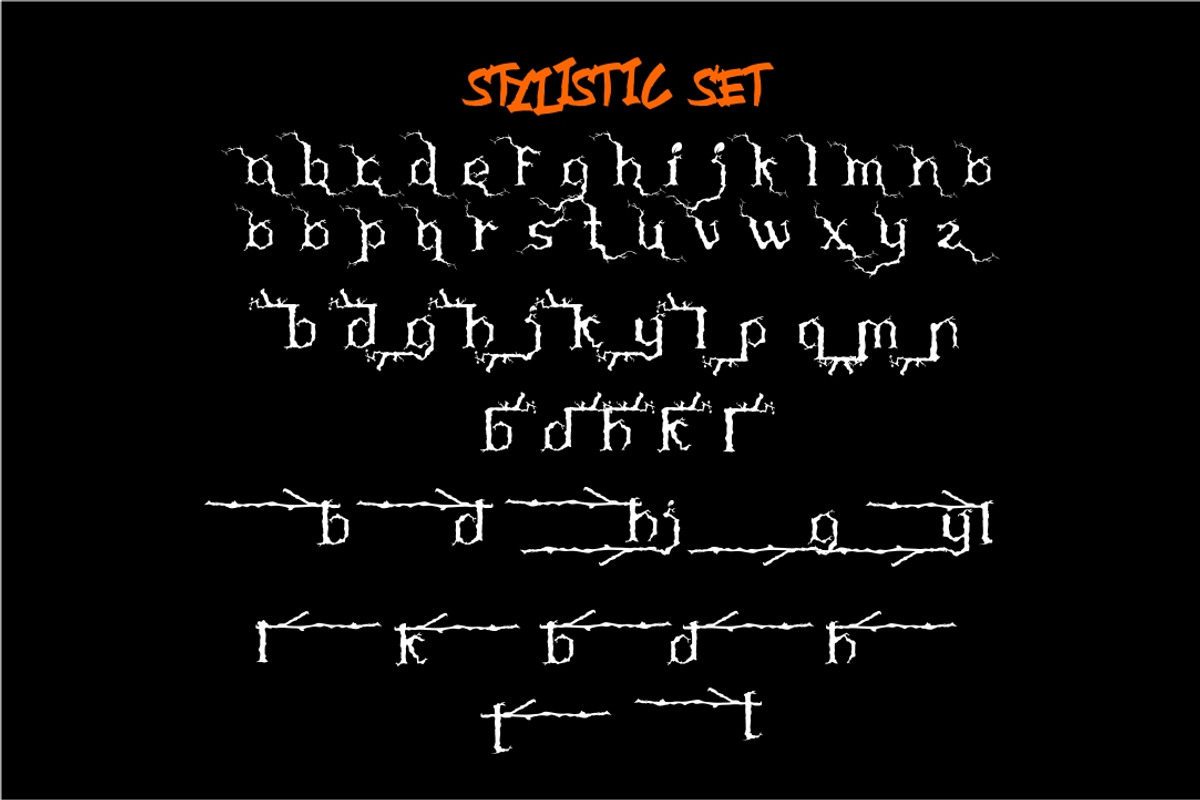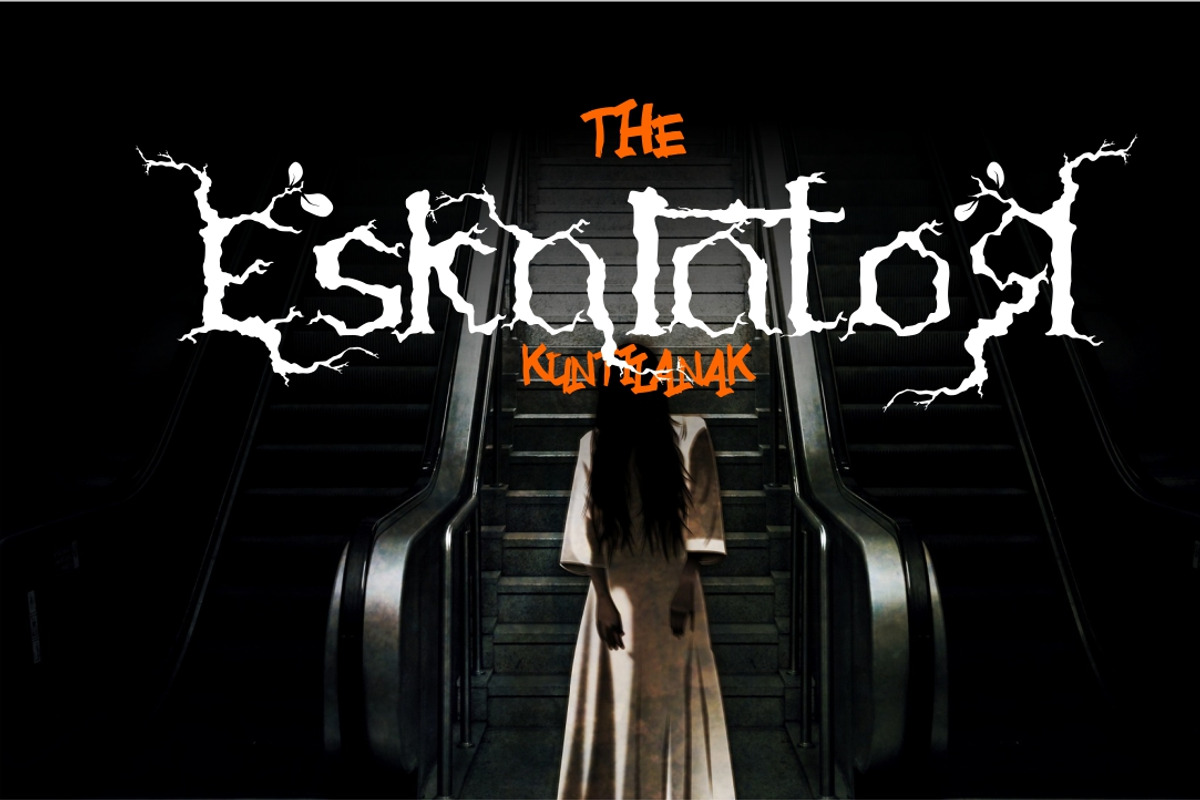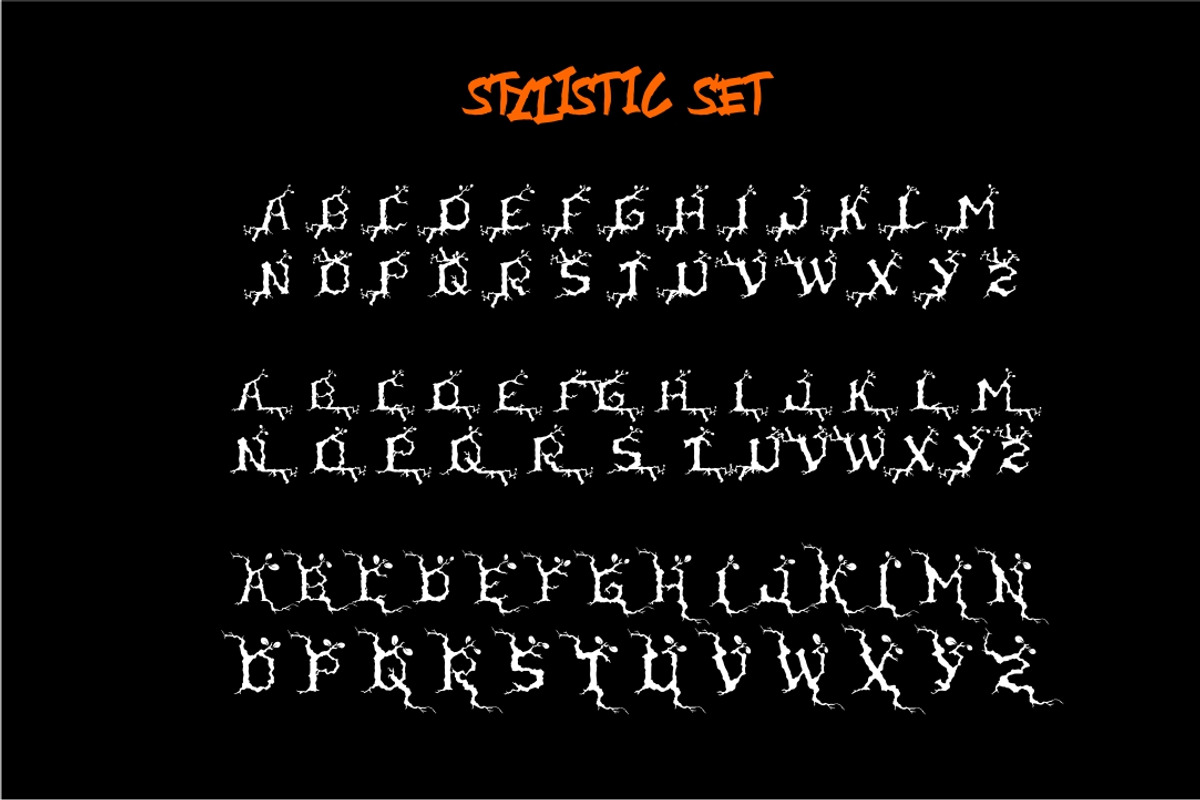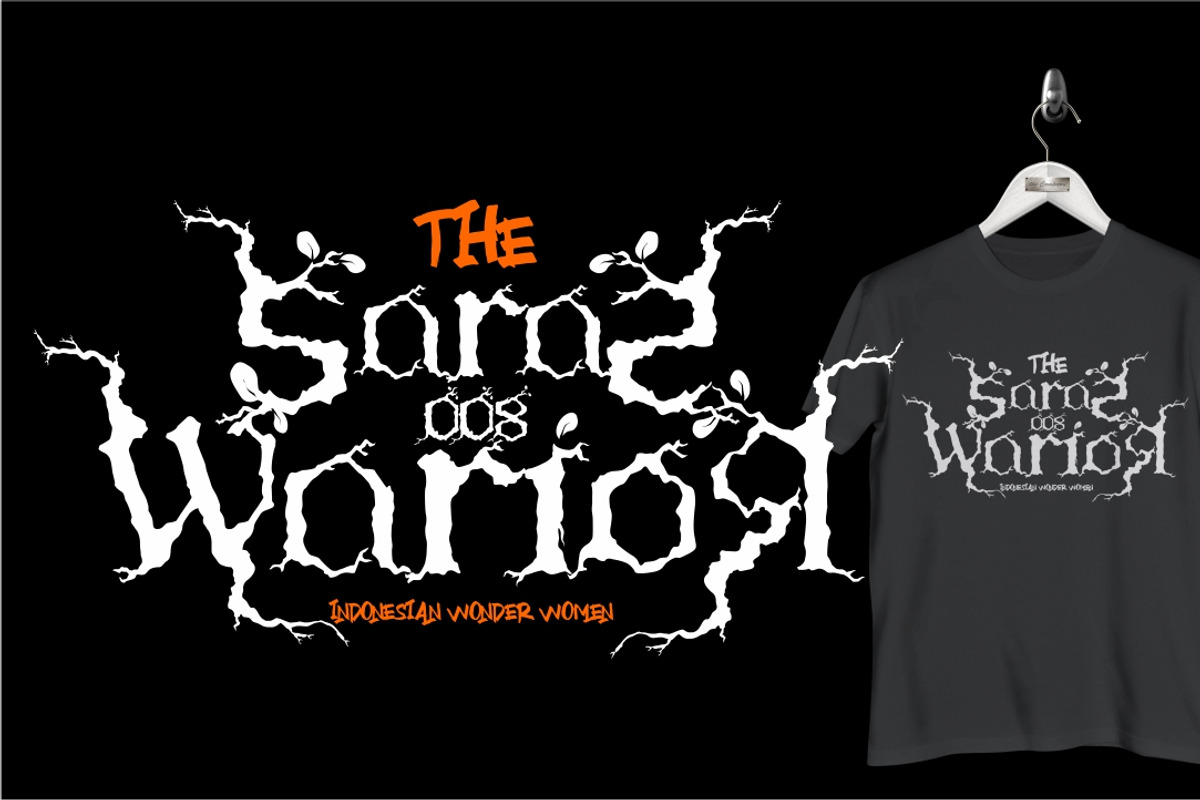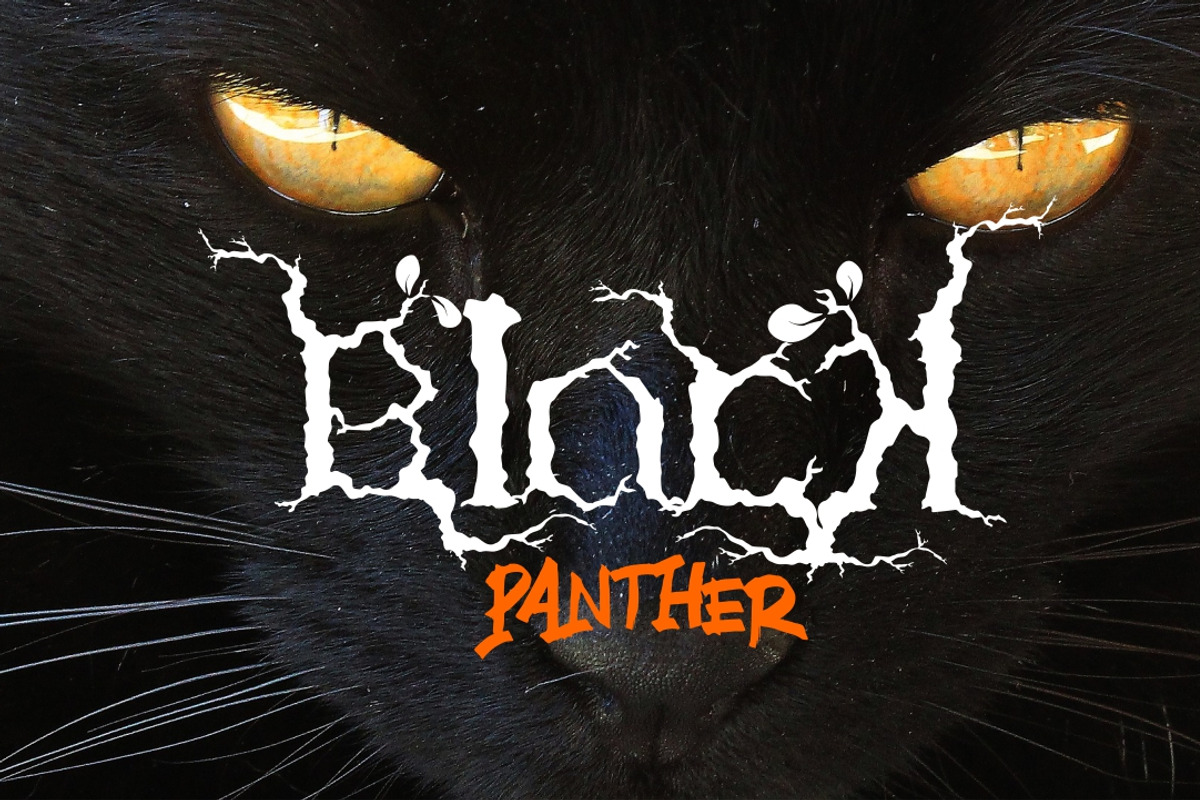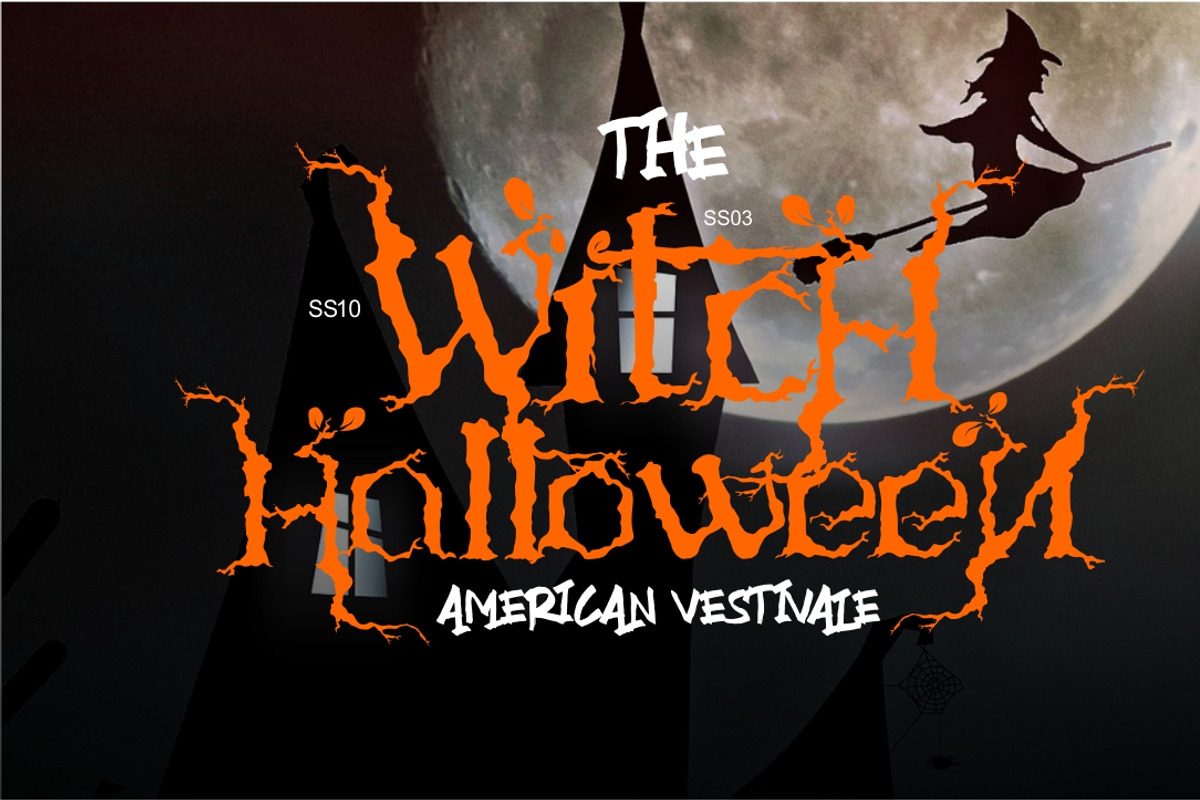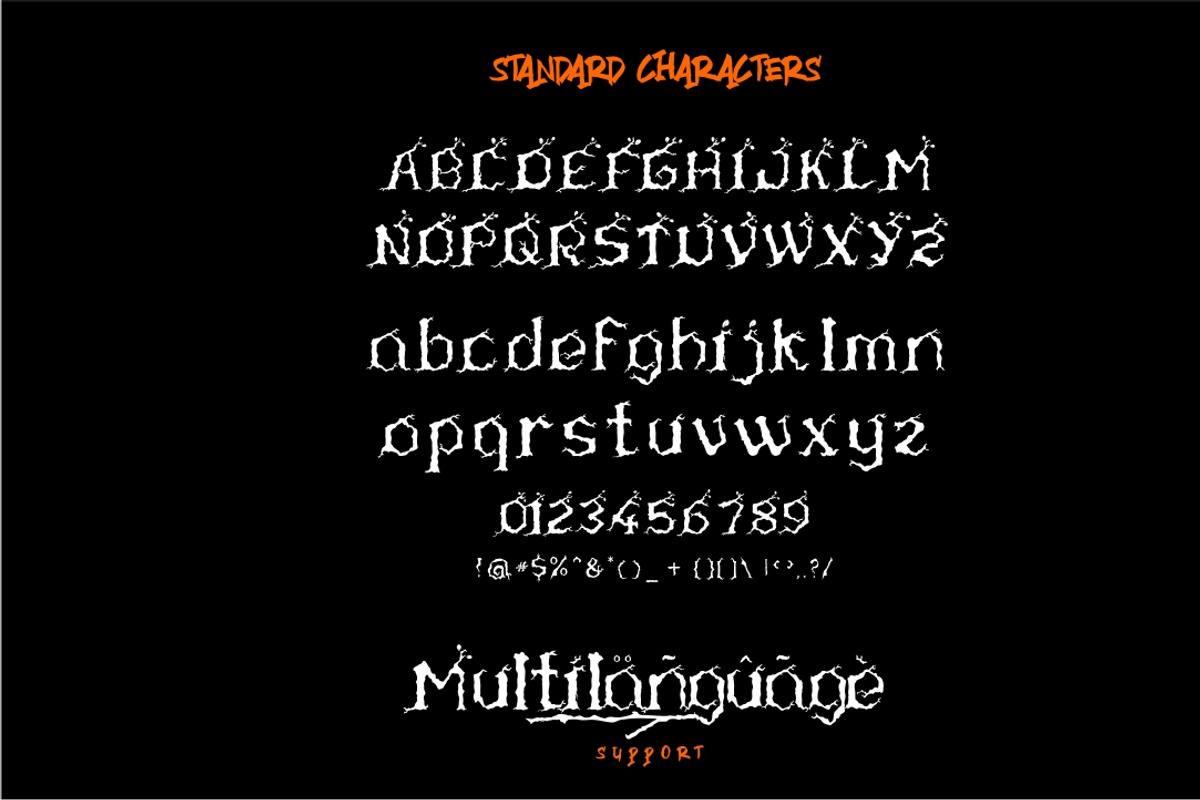
The Ranthing
The Ranthing is a 100% handmade typeface. Brought to give you a professional, creative, and bold looks for you designs.
More Then 100 Stylistic Set
- Lower Case
- Upper Case
- Punctuation
- Numbers and Symbols
- Multi Languages
- More Then 100 Stylistic Set
The Ranthing by Sundawani Typeface fits naturally into Branding, posters, packaging, typography.